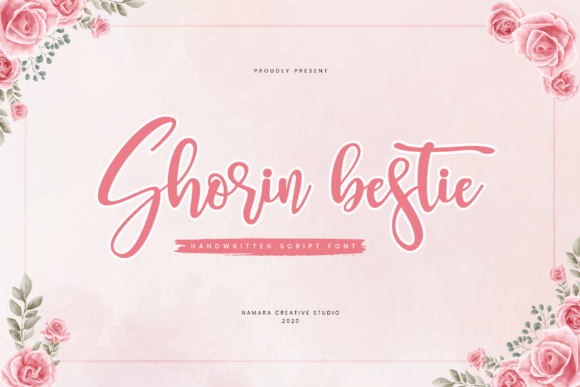
Step into the world of Shorin Bestie, a breathtaking script font that will ignite your creativity and leave you spellbound. Its exquisitely crafted letters, adorned with delicate curves and playful flourishes, dance across the page like a symphony of elegance.
With Shorin Bestie, you'll discover a font that's as versatile as it is beautiful. Whether you're designing captivating logos, eye-catching posters, or stunning social media graphics, this font will elevate your designs to new heights. Let your imagination soar as you explore the endless possibilities that await you with Shorin Bestie.
Unleash your artistic flair and create designs that speak to the heart. Shorin Bestie's enchanting characters will add a touch of sophistication and charm to your projects, leaving a lasting impression on your audience. From whimsical invitations to heartfelt greeting cards, this font will transform your words into works of art.
Experience the joy of effortless creativity with Shorin Bestie. Designed with precision and attention to detail, this font is incredibly user-friendly, ensuring a smooth and seamless design experience. Let your creativity flow freely as you effortlessly bring your visions to life.
Don't miss out on the opportunity to own this exceptional font, Shorin Bestie. Its PUA encoding grants you access to a treasure trove of glyphs and swashes, empowering you to add intricate details and embellishments to your designs. Open up a world of artistic possibilities and elevate your projects to new levels of excellence.